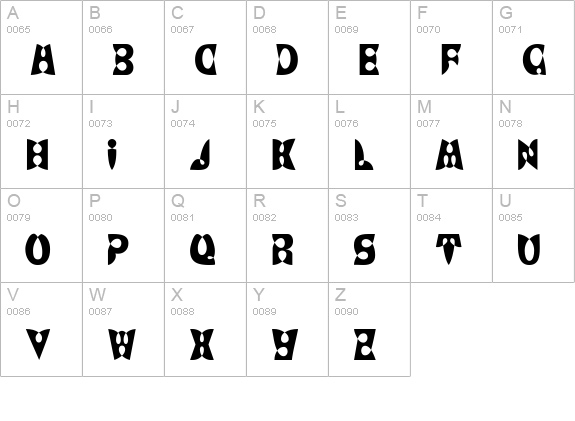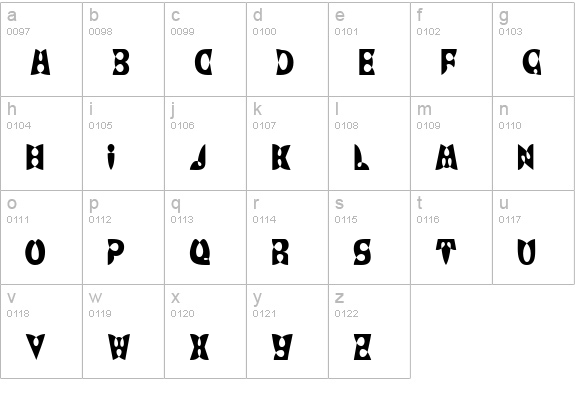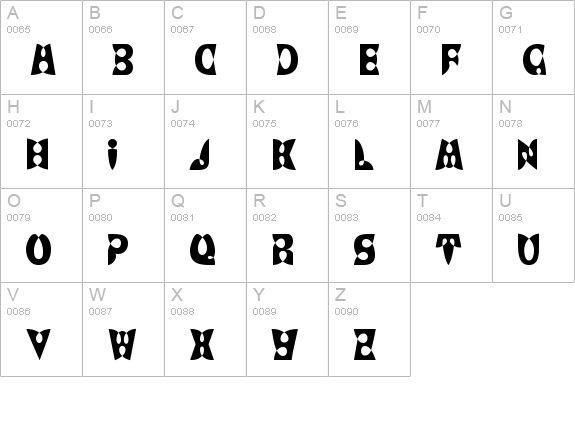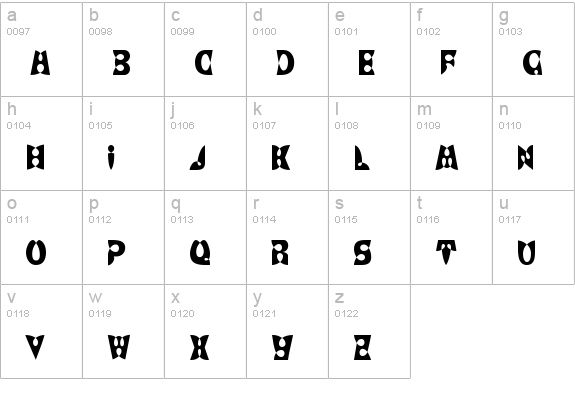
BrashDisplayCaps Font Details
BrashDisplayCaps is a bold and eye-catching display font that exudes confidence and charisma. Its sharp edges and strong lines make a powerful statement, perfect for headlines, logos, and branding projects. This font commands attention with its unique and dynamic appearance, sure to leave a lasting impression on viewers. And the best part? BrashDisplayCaps is available for free download at FontsMarket.com. Get your hands on this striking font today and elevate your designs with its bold and brash style. Unleash your creativity with BrashDisplayCaps and make a bold statement with every project you create.